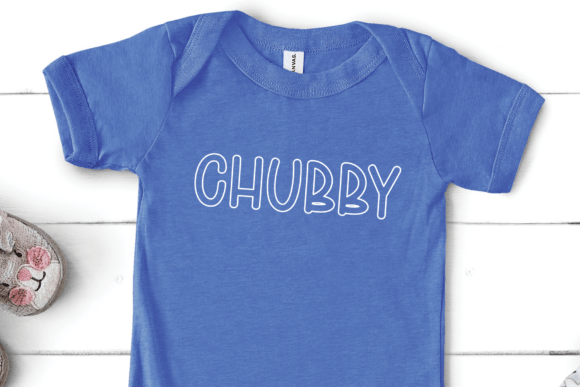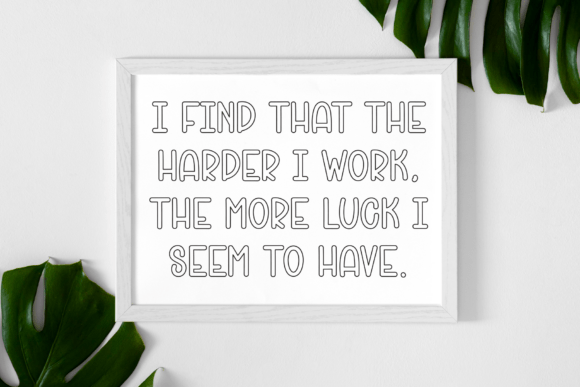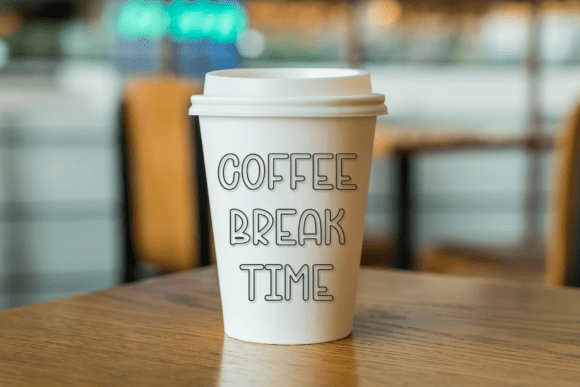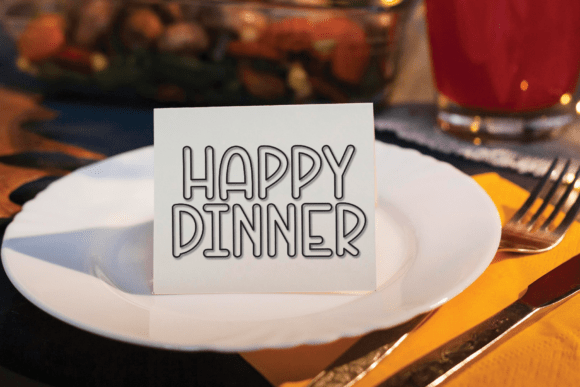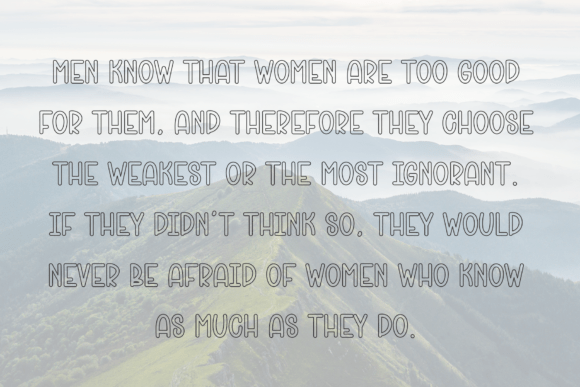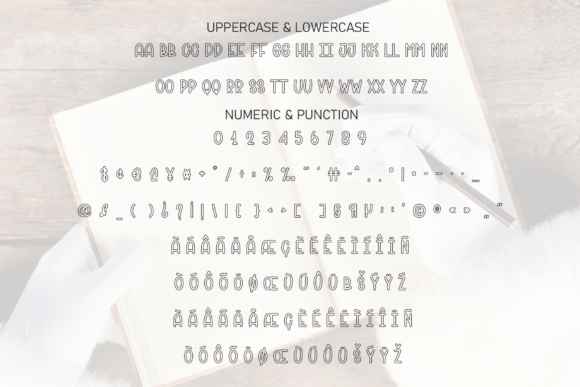
The Magic of Book Santa Font: A Whimsical Delight for Designers
Enter Book Santa Font, a charming handwritten display font that exudes sweetness and friendliness. This delightful font is perfect for crafting enchanting wedding invites, captivating cards, and adding a dash of fun to a multitude of designs. Its whimsical nuances will transport your project to a world of wonder, making it an invaluable addition to any designer’s toolkit.
With Book Santa Font, you’ll discover a world of creative possibilities that will leave your audience spellbound. So, let’s dive into the enchanting world of this delightful font and explore how it can transform your projects into extraordinary masterpieces.
Key Features of Book Santa Font
- Font Family: Book Santa Font is a unique, hand-drawn font designed to resemble a child’s handwriting. It comes in a single font family with various weights and styles.
- Unique Characteristics: Book Santa Font features a distinctive, childlike handwriting style with irregularities and imperfections, adding a touch of personality to any design. It also includes a range of ornaments and decorations to enhance its festive feel.
Book Santa Font Review
Overall, I have mixed feelings about the Book Santa Font. On one hand, it has some unique qualities that make it stand out. ✨ The font’s vintage feel and elegant lines give it a classic, timeless look that would be perfect for book covers, holiday cards, or any project that needs a touch of nostalgia. ✨ The font’s flexibility also makes it suitable for various text sizes and styles, from headings to body text.
However, there are some limitations that prevent me from giving it a full thumbs up. ⚠️ The font’s lack of bold and italic styles makes it less versatile than other fonts in its class. ⚠️ Additionally, the font’s readability can be a concern, especially at smaller text sizes. The letters can become blurry and difficult to decipher, which may not be ideal for projects that require clear and concise text.
Design Considerations
- Use Book Santa Font for projects that require a vintage or classic look.
- Avoid using the font for small text sizes or projects that require clear readability.
- Consider pairing the font with a more modern or sans-serif font to balance out the look.
Use the Book Santa Font to add a festive touch to your designs, especially during the holiday season.
Experiment with different font sizes and colors to create a visually appealing effect.
Combine the Book Santa Font with other text and graphics elements to create a unique and engaging design.